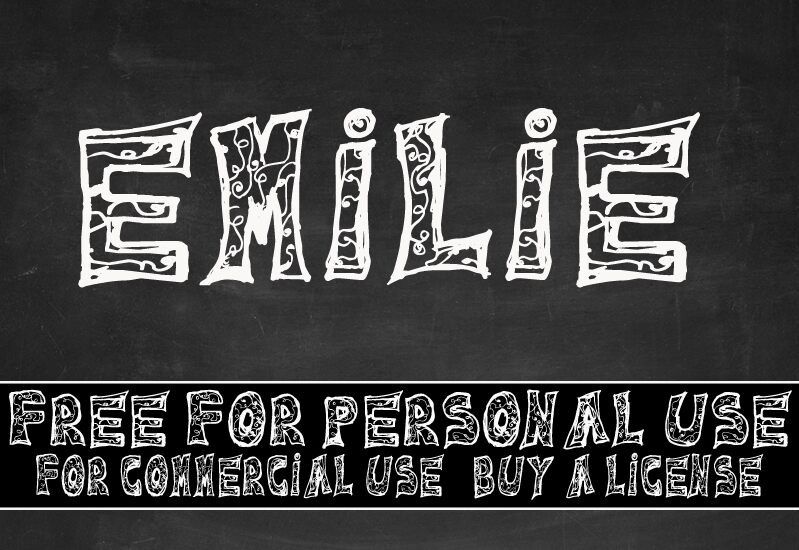
Emilie by Cloutier Fontes is a free cartoon display font whose tall, irregular capitals have heavy outer edges, crooked slab serifs, broad bent strokes, and the buoyant wobble of hand-drawn lettering. The open interiors are crowded with loose curls, dots, and looping marks, so each letter reads as both text and a compact piece of doodled decoration, and the marks vary from one form to the next.
The style lands squarely in playful storybook territory. For children's publishing, party invitations, candy packaging, and craft merchandise, its swirling motifs can continue into borders, patterns, or surrounding illustrations.
Emilie Regular is a font by CloutierFontes, designed by Steve Cloutier in 2012.